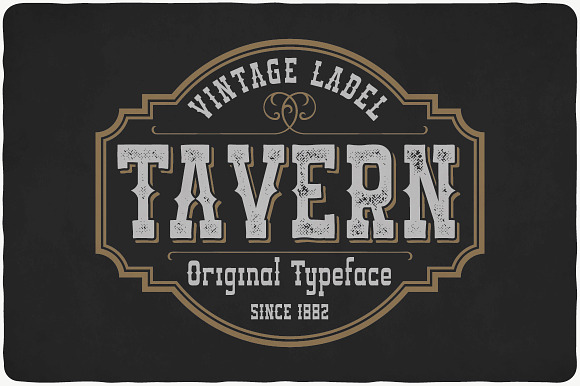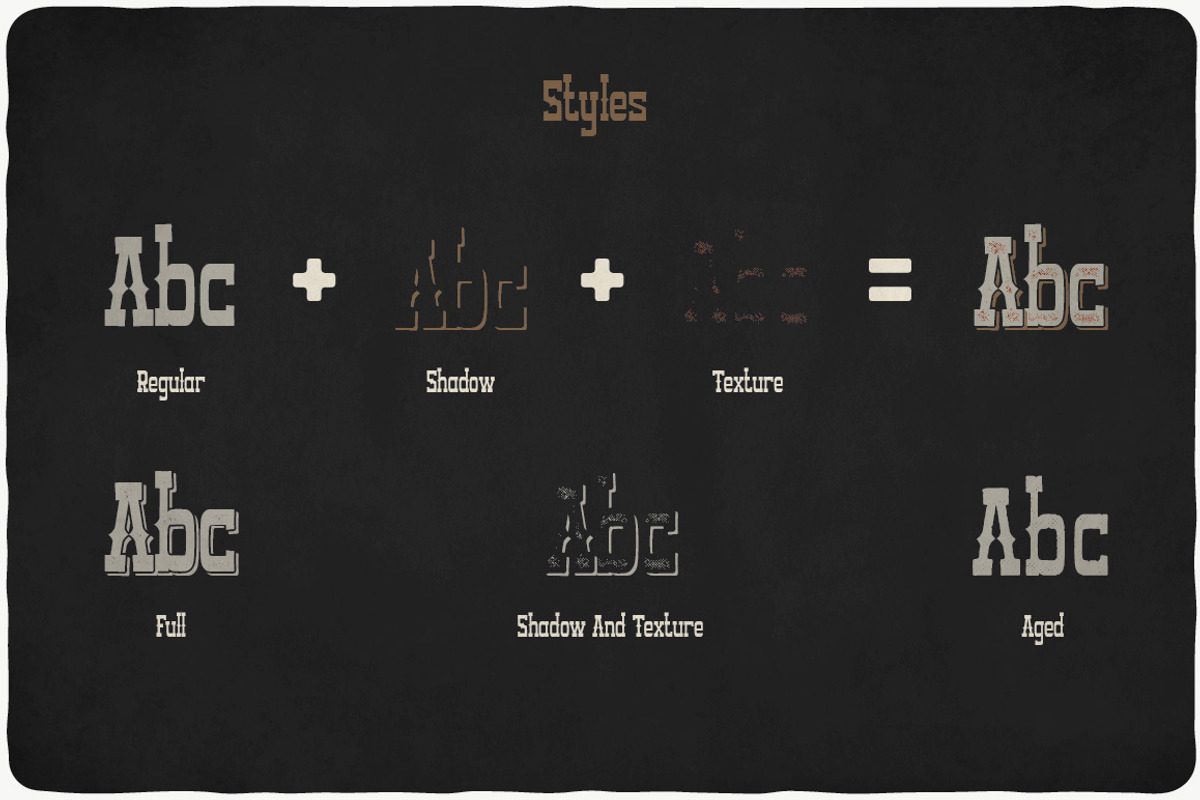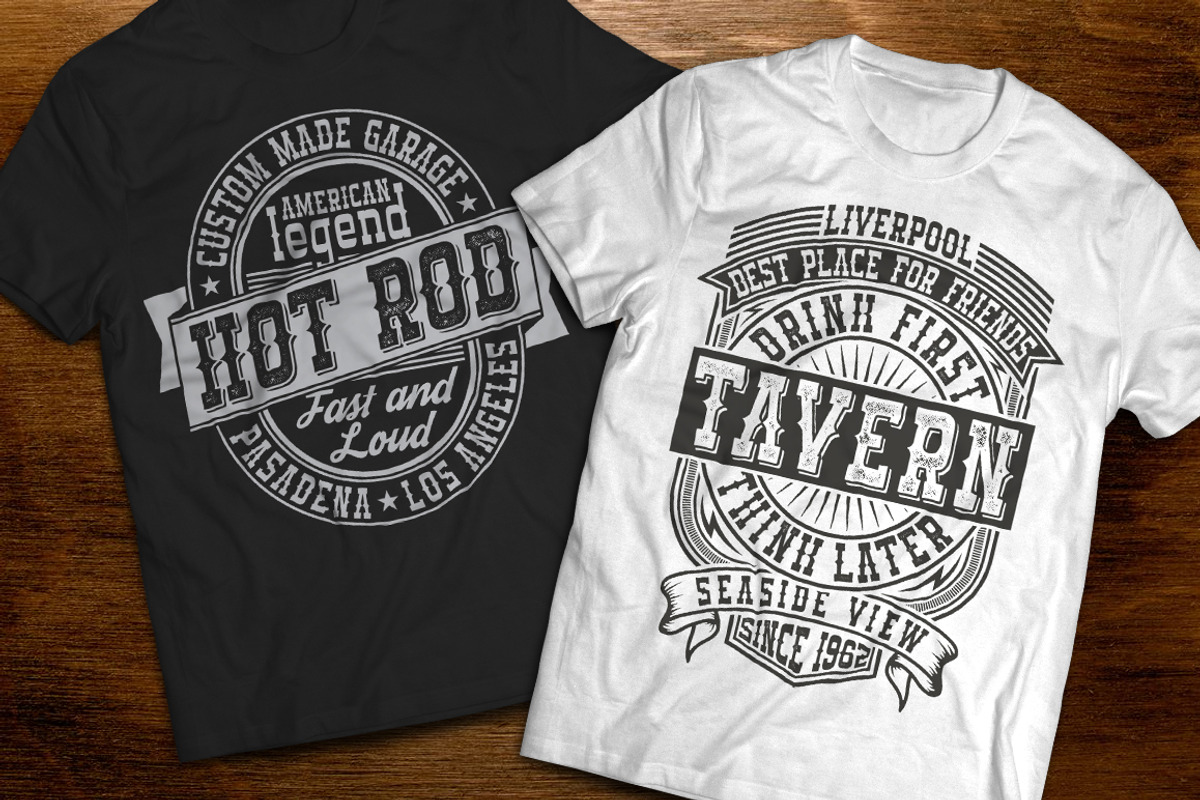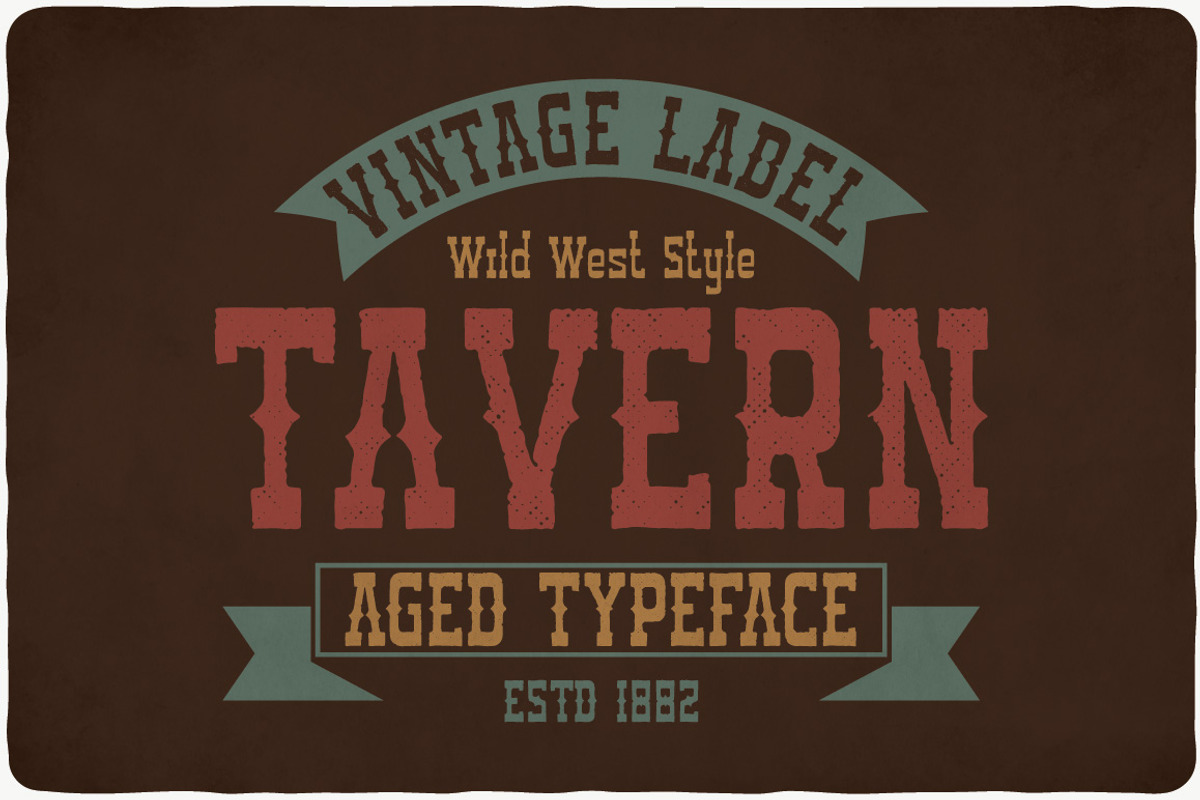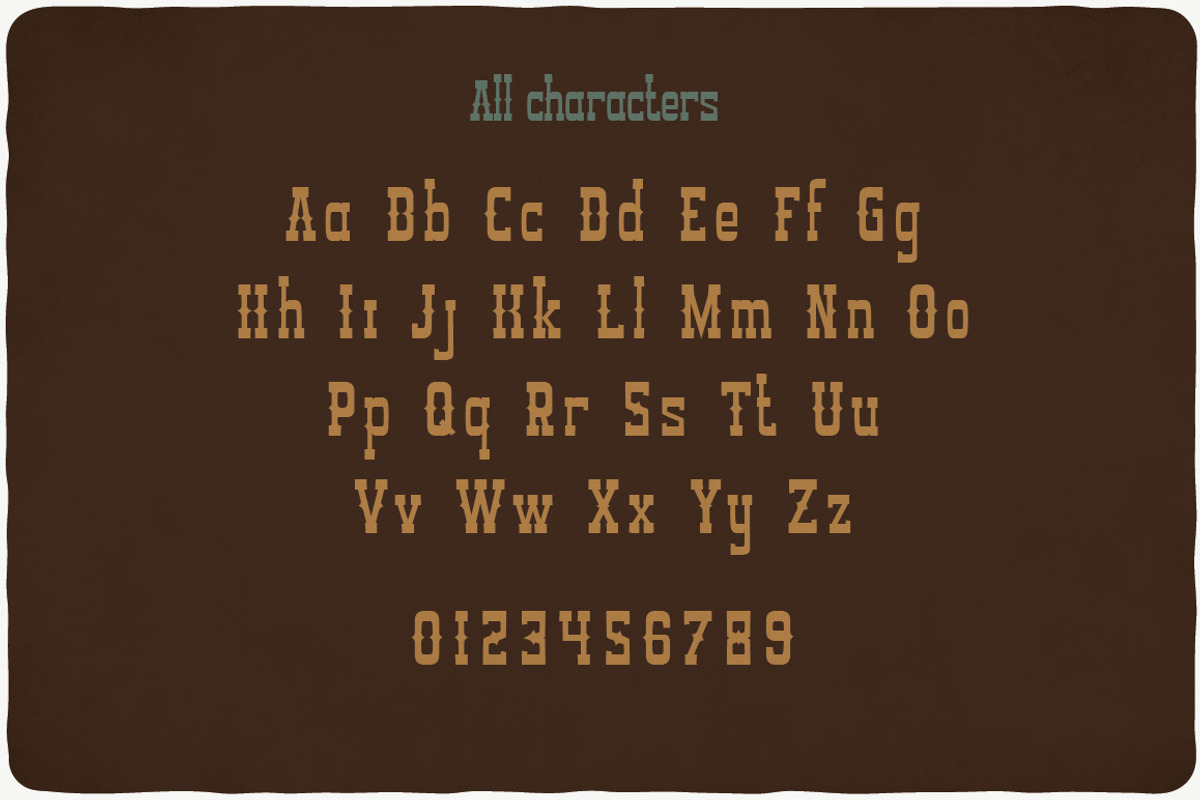
Tavern Typeface
Introducing a vintage look label typeface named "Tavern". This typeface contains layers - texture and shadow, for sample look at 4th preview. Plus aged (distressed) version. Typeface is good viewed on any yours design.
- This typeface contains layers - texture and shadow, for sample look at 4th preview.
Why Tavern Typeface is worth a look